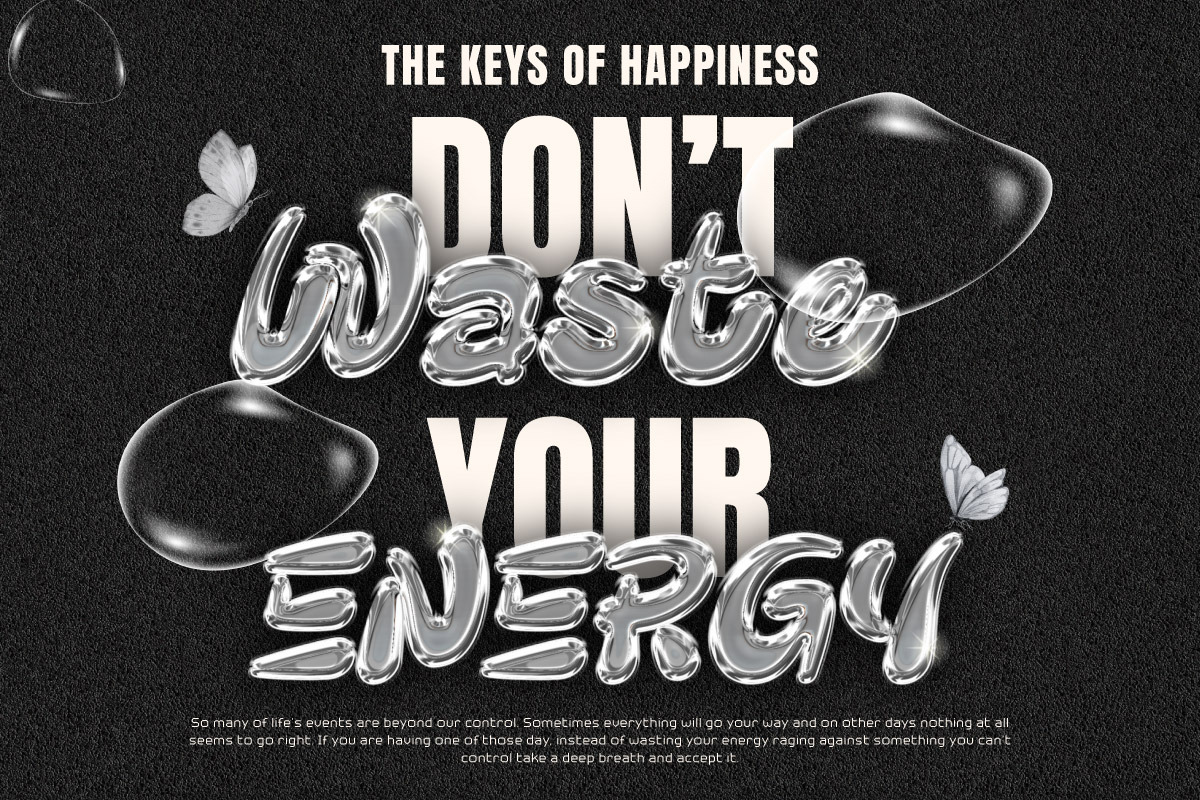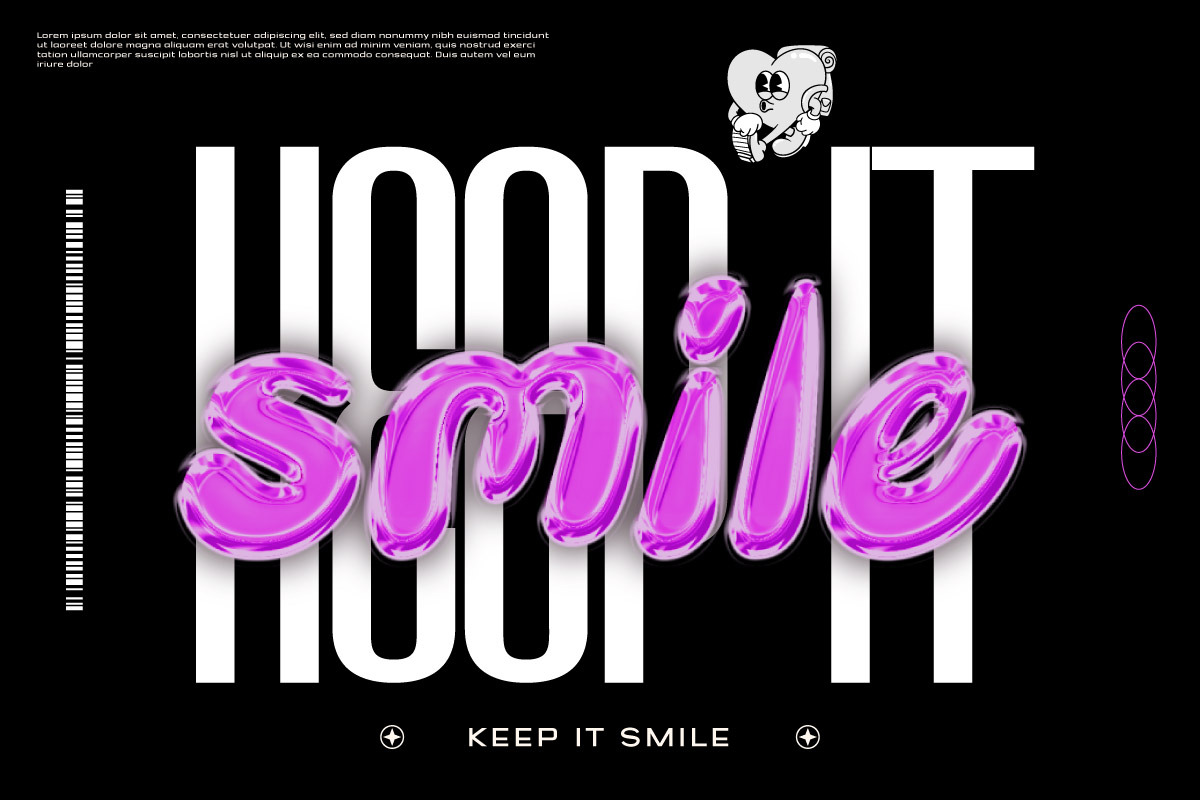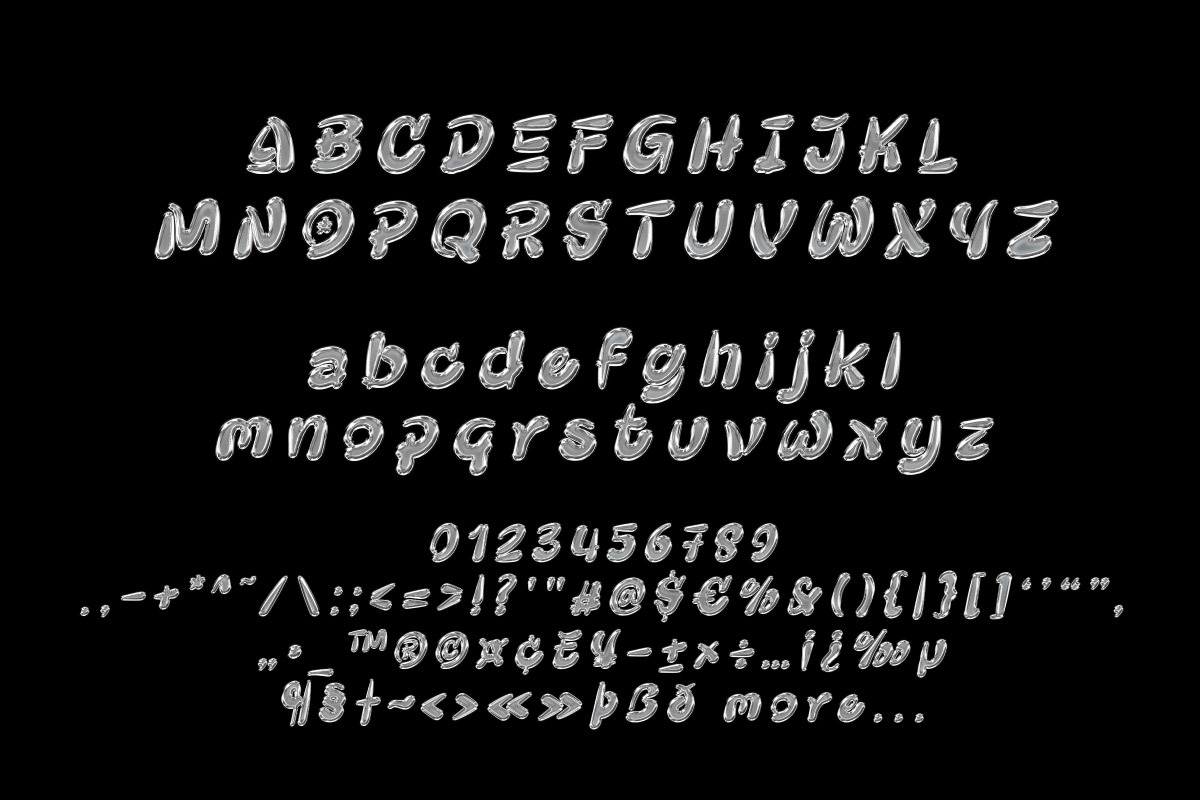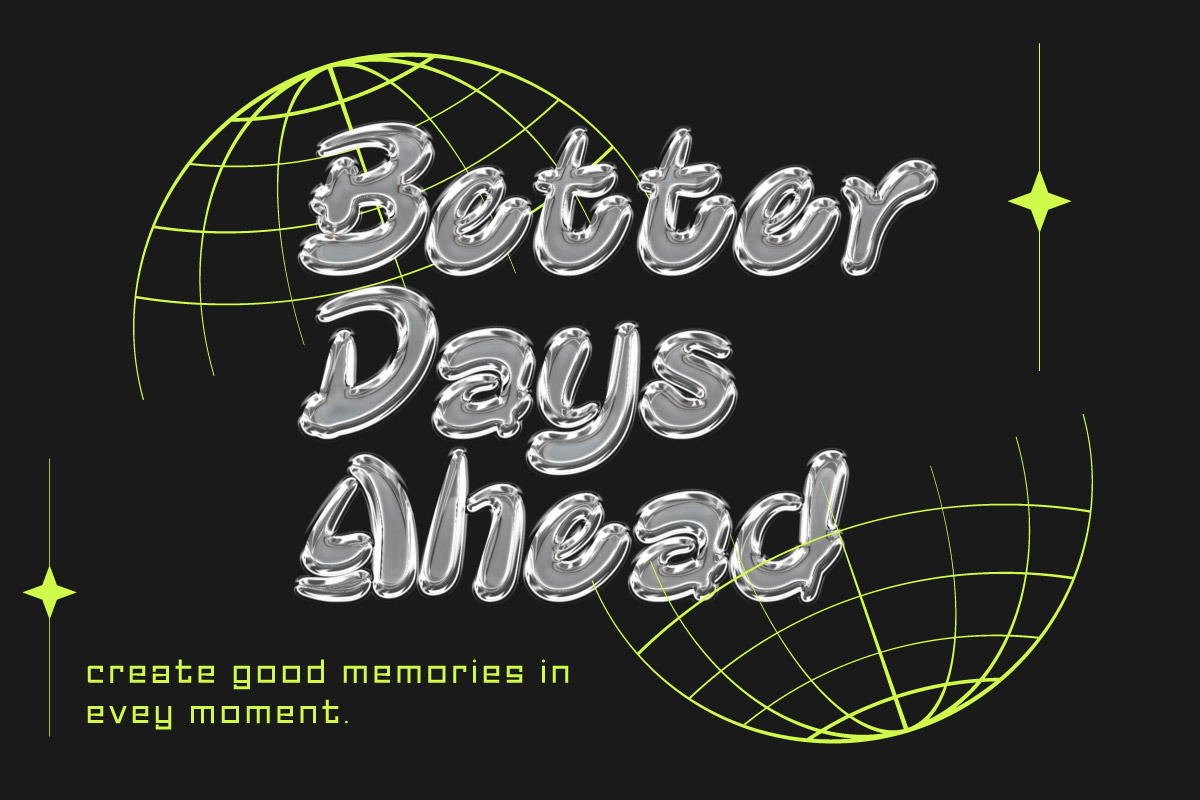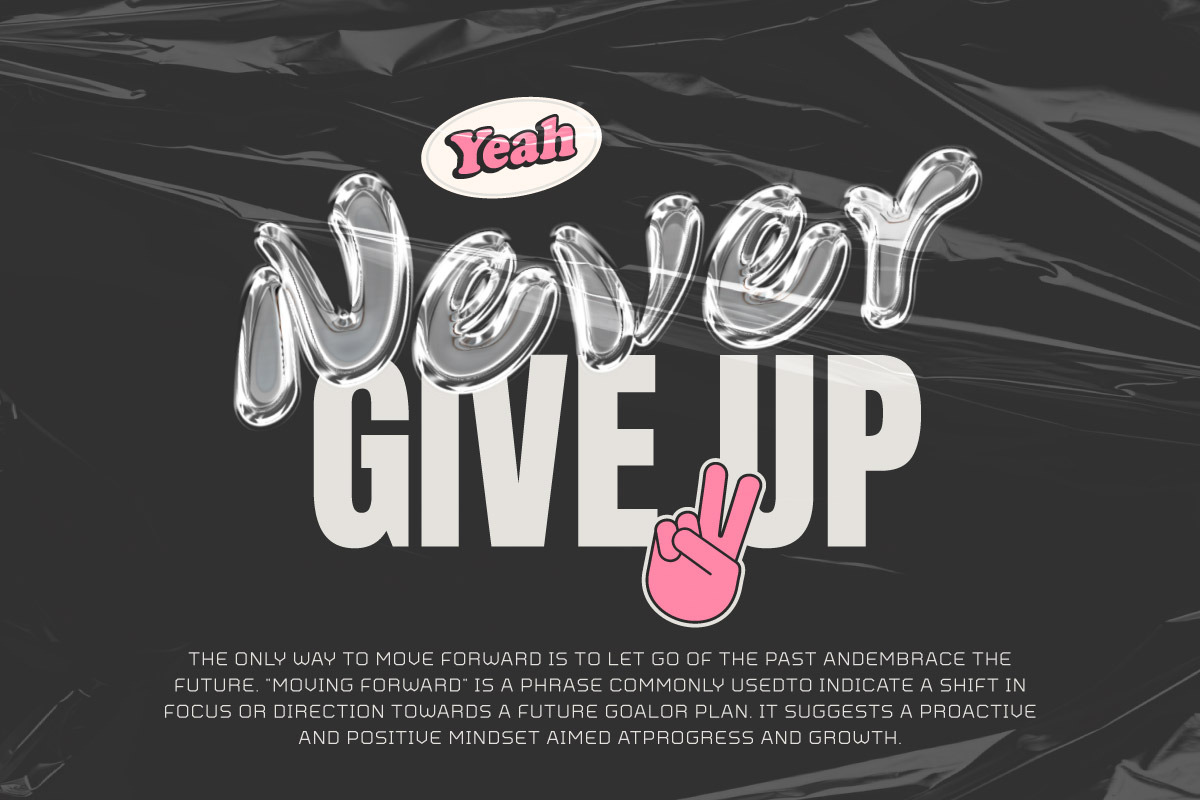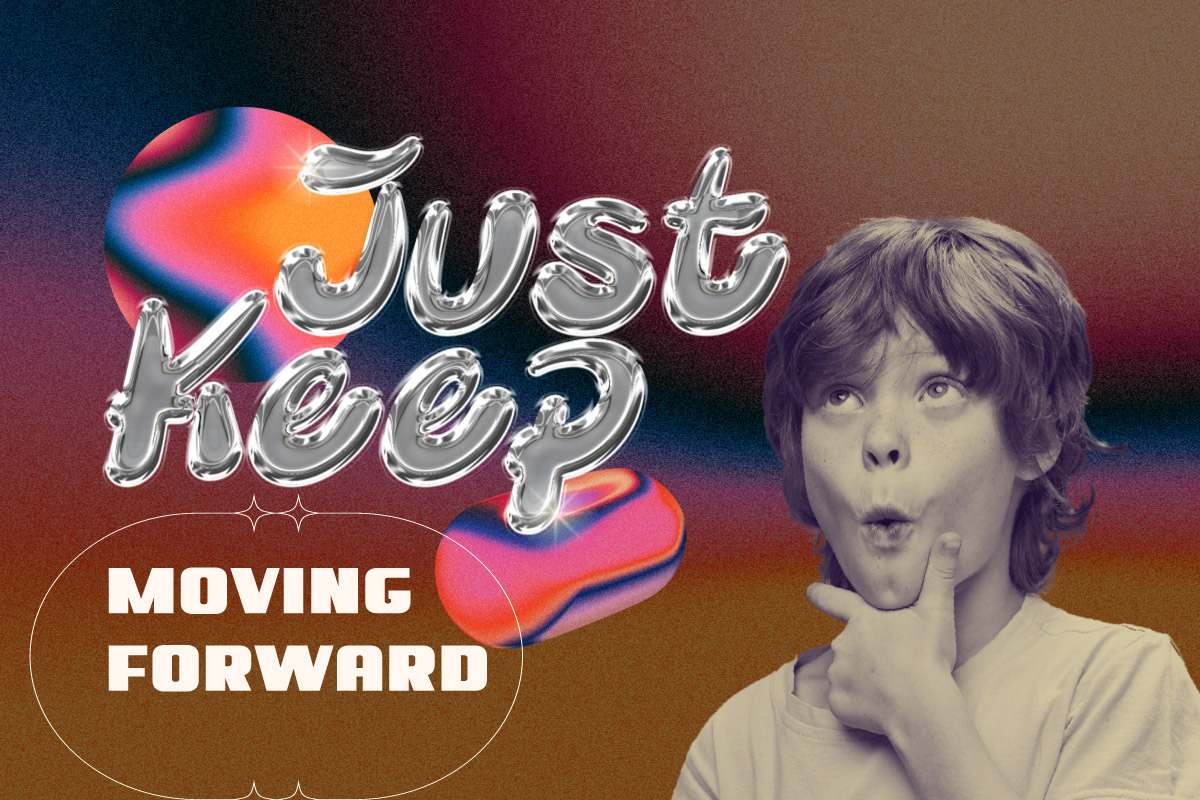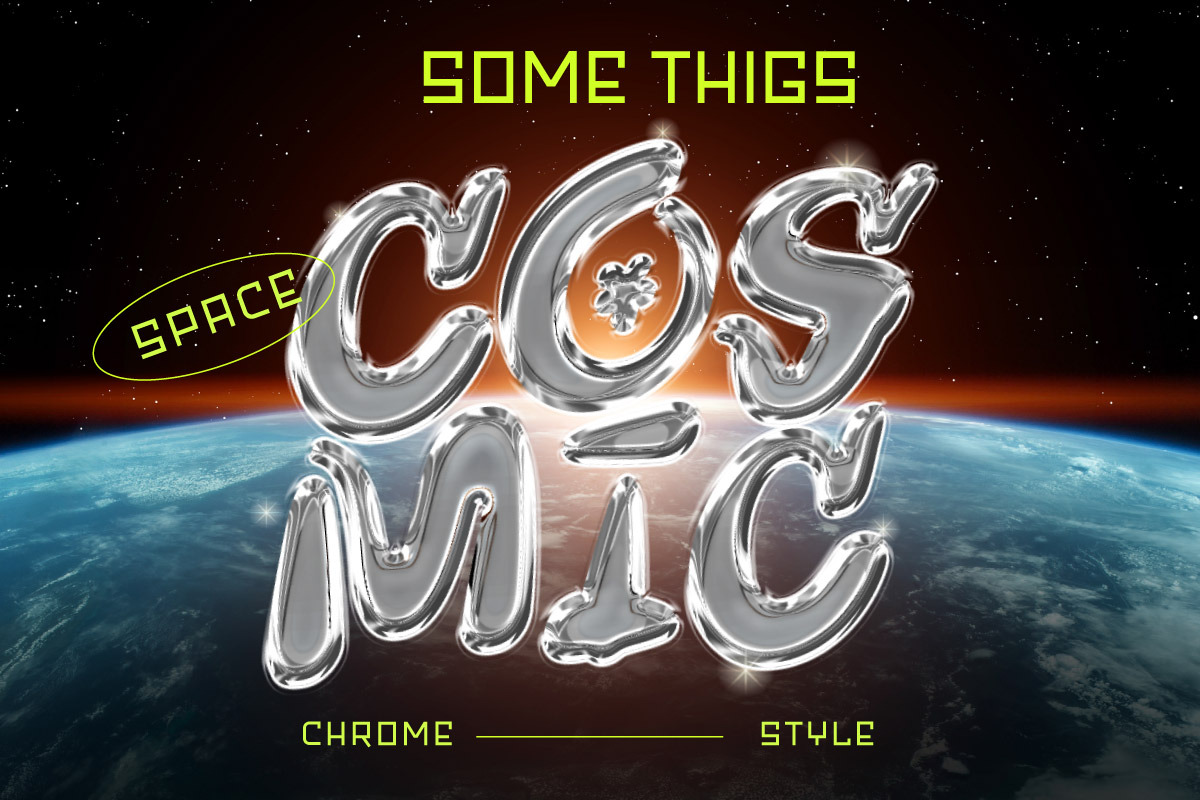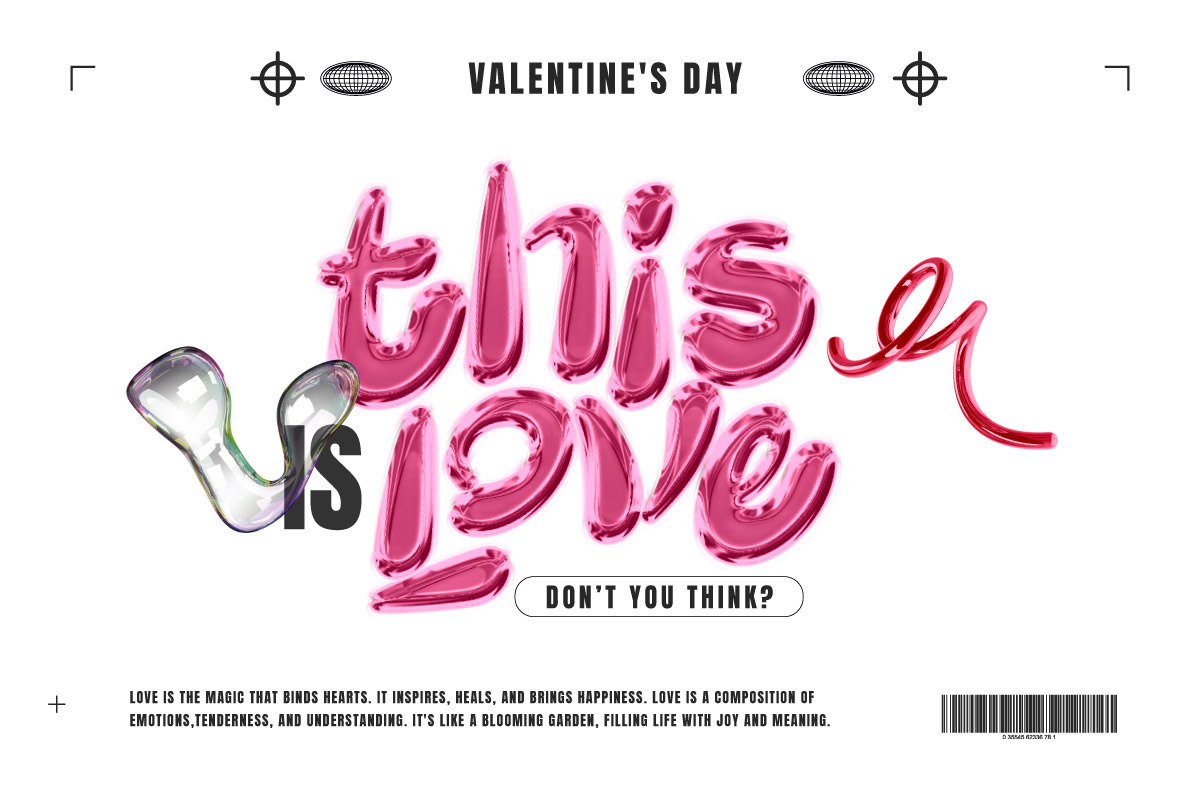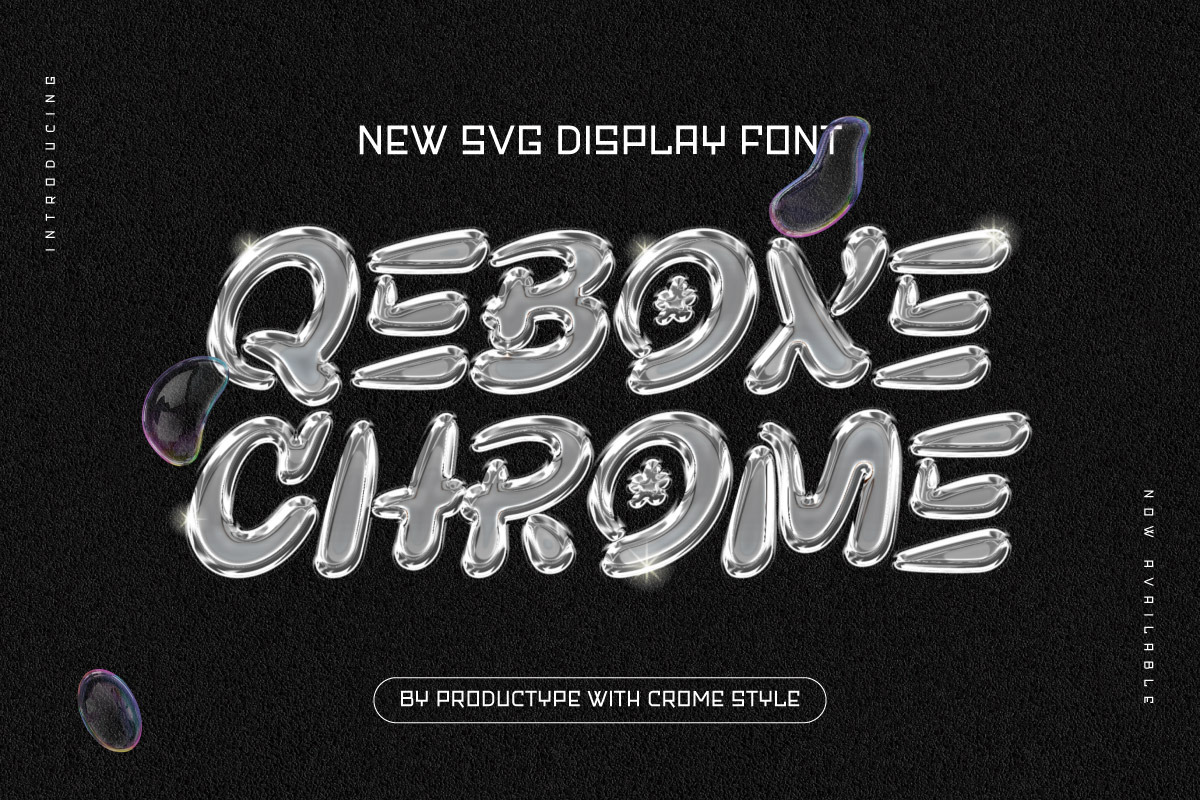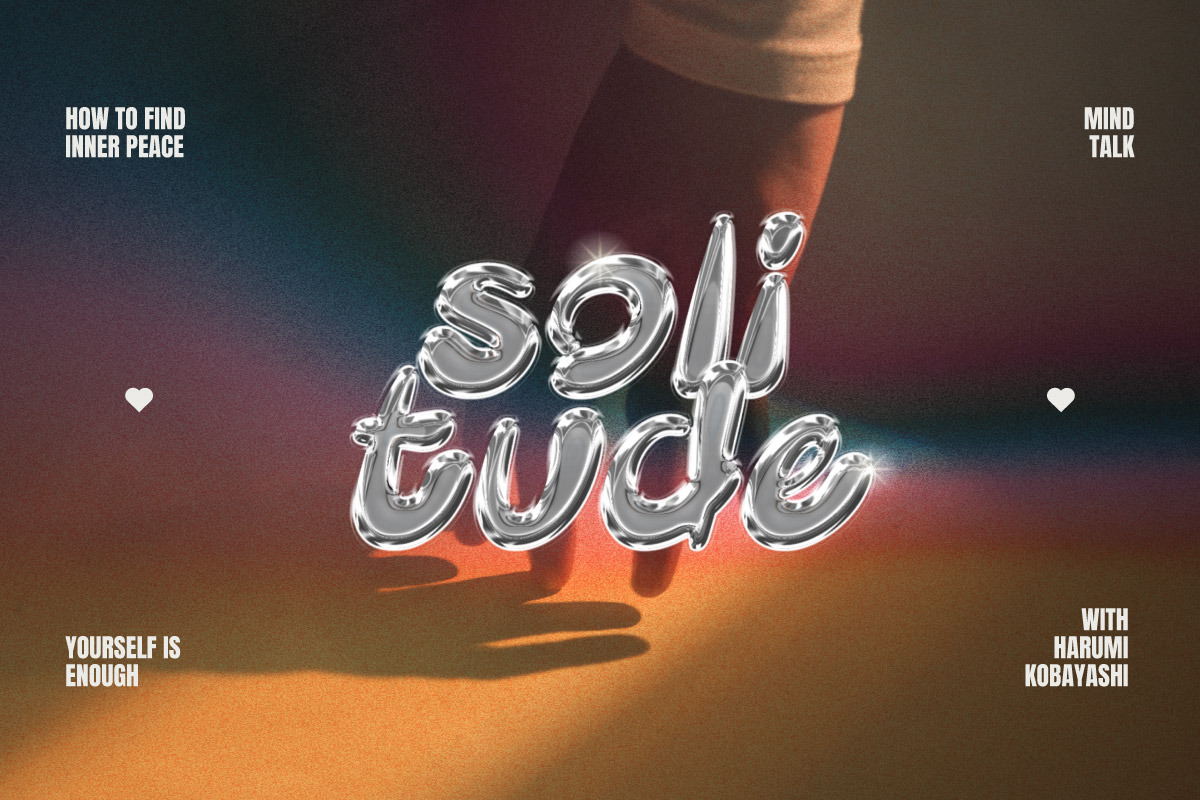
Qebox Chrome - 3D SVG Font
Introduce a futuristic and bold element to your designs with Qebox Chrome, a 3D Chrome Style SVG Font that exudes a sleek and modern aesthetic. Perfect for tech branding, sci-fi posters, video game titles, and more, Qebox Chrome features reflective chrome surfaces that create a striking visual impact. Each letter is meticulously crafted with intricate details and realistic lighting effects, making your text pop off the screen or page with a metallic shine.
The advanced SVG technology used in Qebox Chrome allows for high-resolution graphics and vibrant colors, ensuring your designs look polished and professional. Whether you're looking to make a statement with a bold headline or add a touch of modernity to your branding, Qebox Chrome delivers a cutting-edge style that captures attention and leaves a lasting impression.